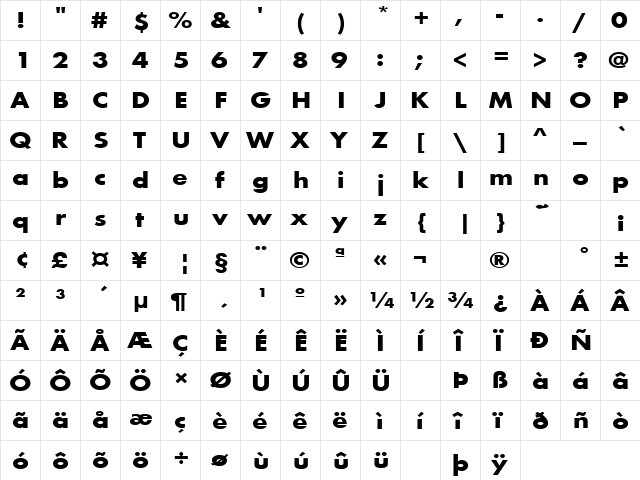
Heartbreaker 1 Regular
Design Context for Heartbreaker 1 Typeface
Heartbreaker 1 is a composed and adaptable typeface that performs quietly and consistently across a wide range of design contexts.
Pro Tip: Use Heartbreaker 1 in both headline and body roles to test its range before committing to a single application.